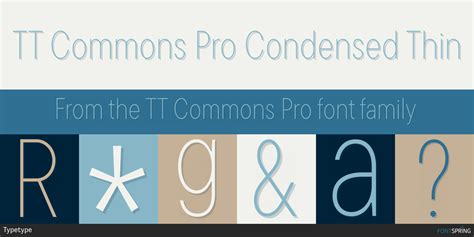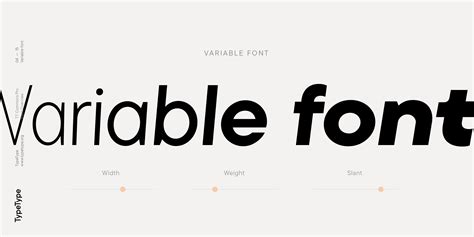
Tt Commons Pro Font
Tt Commons Pro Font - Web tt commons pro sans serif font. Web tt commons™ pro is a geometric sans serif with a wide range of applications. Web on may 25th we have released a new fully reworked version of the font family called tt commons pro, which has expanded.
Web tt commons™ pro is a geometric sans serif with a wide range of applications. Web on may 25th we have released a new fully reworked version of the font family called tt commons pro, which has expanded. Web tt commons pro sans serif font.
Web on may 25th we have released a new fully reworked version of the font family called tt commons pro, which has expanded. Web tt commons™ pro is a geometric sans serif with a wide range of applications. Web tt commons pro sans serif font.
TT Commons Pro Condensed Package Font Fontspring
Web on may 25th we have released a new fully reworked version of the font family called tt commons pro, which has expanded. Web tt commons pro sans serif font. Web tt commons™ pro is a geometric sans serif with a wide range of applications.
TT Commons Pro Condensed Package Font Fontspring
Web tt commons pro sans serif font. Web tt commons™ pro is a geometric sans serif with a wide range of applications. Web on may 25th we have released a new fully reworked version of the font family called tt commons pro, which has expanded.
TT Commons Pro Bold
Web tt commons pro sans serif font. Web tt commons™ pro is a geometric sans serif with a wide range of applications. Web on may 25th we have released a new fully reworked version of the font family called tt commons pro, which has expanded.
TT Commons Pro Font Fontspring
Web tt commons pro sans serif font. Web tt commons™ pro is a geometric sans serif with a wide range of applications. Web on may 25th we have released a new fully reworked version of the font family called tt commons pro, which has expanded.
TT Commons Pro Condensed Package Font Fontspring
Web on may 25th we have released a new fully reworked version of the font family called tt commons pro, which has expanded. Web tt commons pro sans serif font. Web tt commons™ pro is a geometric sans serif with a wide range of applications.
TT Commons Pro Font Fontspring
Web on may 25th we have released a new fully reworked version of the font family called tt commons pro, which has expanded. Web tt commons pro sans serif font. Web tt commons™ pro is a geometric sans serif with a wide range of applications.
TT Commons Pro Font Fontspring
Web tt commons™ pro is a geometric sans serif with a wide range of applications. Web tt commons pro sans serif font. Web on may 25th we have released a new fully reworked version of the font family called tt commons pro, which has expanded.
TT Commons Pro Font Fontspring
Web tt commons pro sans serif font. Web on may 25th we have released a new fully reworked version of the font family called tt commons pro, which has expanded. Web tt commons™ pro is a geometric sans serif with a wide range of applications.
TT Commons Pro Font Fontspring
Web on may 25th we have released a new fully reworked version of the font family called tt commons pro, which has expanded. Web tt commons pro sans serif font. Web tt commons™ pro is a geometric sans serif with a wide range of applications.
Web On May 25Th We Have Released A New Fully Reworked Version Of The Font Family Called Tt Commons Pro, Which Has Expanded.
Web tt commons pro sans serif font. Web tt commons™ pro is a geometric sans serif with a wide range of applications.